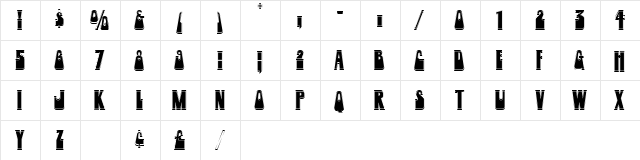
Woogie Display Outline Caps SSi Regular
Design Context for Woogie Display Outline Caps SSi Typeface
Woogie Display Outline Caps SSi is built around its visual character rather than neutral utility — its distinctive forms are designed to make an impression at display sizes.
Font Pairing: Pair with a clean neutral sans-serif for body copy to let Woogie Display Outline Caps SSi's character lead without overwhelming the composition.
Pro Tip: Use Woogie Display Outline Caps SSi exclusively at display sizes — it was designed to be seen, not read at length. Let a neutral companion handle body copy.